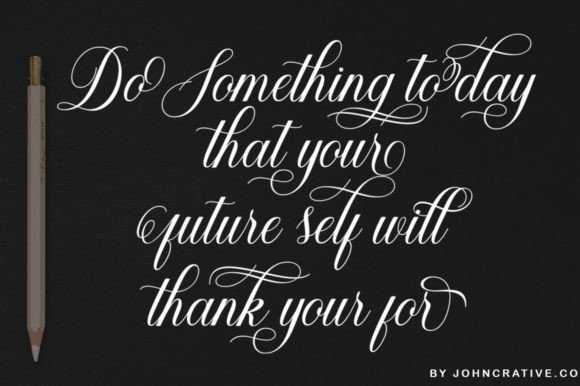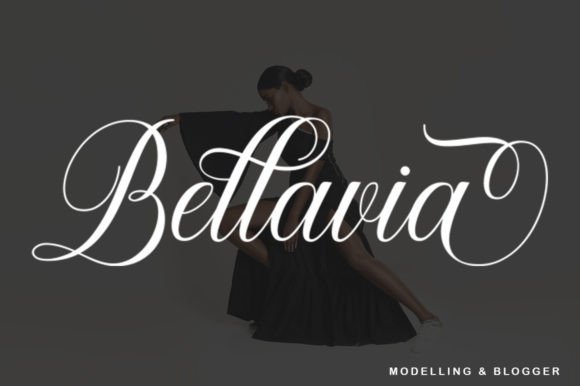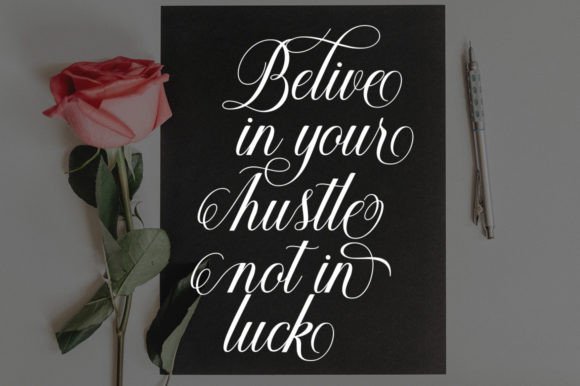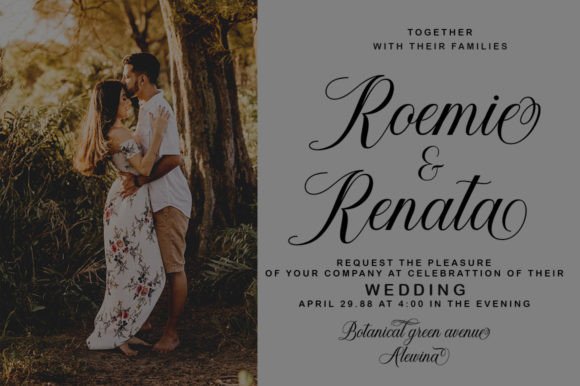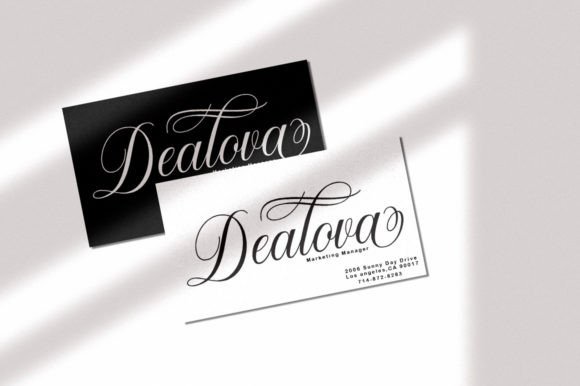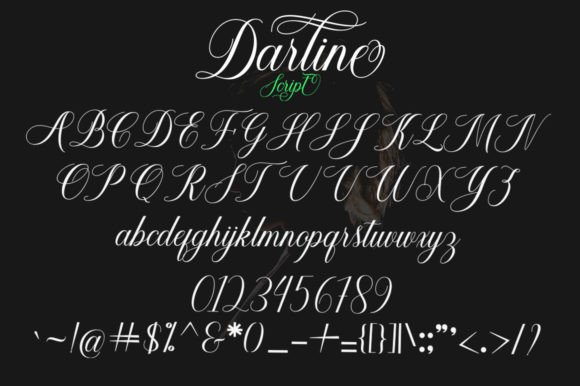
Introduction to Darline Script Font
Have you ever found yourself scribbling down an idea on a napkin, only to realize it’s a design that could be a free download or a high-quality transparent background graphic? That’s exactly what happened to me when I stumbled upon the Darline Script Font – a sophisticated handwritten font that adds a touch of authenticity to any creative project.
Whether you’re crafting cards, branding, labels, or any other design, the Darline Script Font is a valuable resource that can elevate your ideas and give them a professional, yet personal touch. As a designer, having a reliable and versatile font like this one can be a game-changer, allowing you to convey your message with confidence and charm.
In this article, we’ll take a closer look at the Darline Script Font and explore its features, benefits, and uses in various creative projects.
Key Features of Darline Script Font
- Unique and elegant script design perfect for creative projects, including invitations, quotes, and social media graphics.
- High-quality font with a transparent background, ideal for use on various design resources, such as web pages and print materials.
- Includes a range of font sizes and styles, from 8pt to 24pt, to suit various design needs and creative projects.
- Features a high resolution of 300 DPI, ensuring crisp and clear text even when scaled up or down.
- Perfect for designers and artists looking for a high-quality, unique, and elegant script font to elevate their designs and creative projects.
- Can be used on a variety of design resources, including business cards, brochures, and social media graphics, to add a touch of sophistication and elegance.
Honest Review: Darline Script Font
The Darline Script Font offers a high-quality design resource that can elevate any design. It features a beautiful, handwritten script style with a transparent background, making it perfect for use on any background color.
Here are some things that work well with the Darline Script Font:
- Its elegant and sophisticated design makes it perfect for wedding invitations, greeting cards, and other creative projects.
- The font is highly customizable, allowing designers to adjust the size, color, and style to fit their design needs.
- The transparent background makes it easy to integrate with other design elements.
- The font may not be suitable for use in very small sizes, as the script style can become difficult to read.
- Some users may find the font’s aesthetic to be too ornate or over-the-top.
Overall, I’m impressed with the Darline Script Font’s high quality and versatility. While it may have some limitations, it’s definitely a valuable design resource to have in your toolkit.
Darline Script Font
To get the most out of the Darline Script Font, use it with a transparent background and pair it with other high-quality design resources.
The Darline Script Font is ideal for:
- Wedding invitations.
- Branding materials.
- Marketing campaigns.
Alternatives to Darline Script Font
Alex Brush Font is a high-quality, handwritten font perfect for creative projects that require a touch of elegance. It’s ideal for wedding invitations, quotes, and other design elements where a beautiful script is needed. This font is free to download and has a transparent background, making it easy to integrate into your design. Compared to Darline Script Font, Alex Brush has a more delicate and refined look, making it suitable for a wider range of designs.